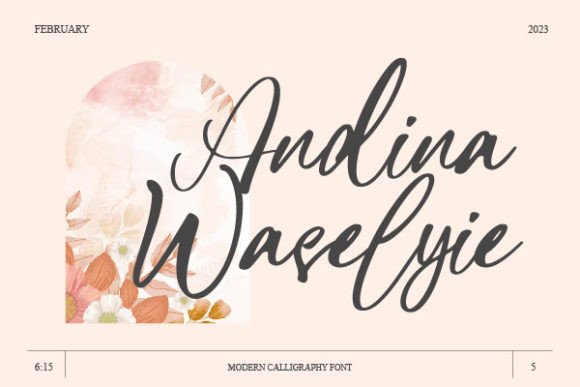
The Elegant Andina Waselyie Font: A Designer’s Dream Come True
I’ll never forget the time I was working on a wedding invitation project, and I just couldn’t find the perfect font to give it that elegant, handwritten touch. My client was specific about the style, and I was on a tight deadline. That’s when I stumbled upon the Andina Waselyie font, and it was love at first sight! 💕
Andina Waselyie is a stylish and incredibly elegant script font that has become a go-to in my design toolkit. It looks stunning on wedding invitations, thank you cards, quotes, greeting cards, logos, business cards, and every other design that needs a touch of sophistication.
- 💫 Elegant and stylish script font perfect for high-end designs
- 🎨 Versatile and works well with a variety of design elements
- 💬 Beautifully crafted with attention to detail
- ⚠️ Some letters have limited alternates, which can make it feel a bit repetitive
- 🤔 Not ideal for body text or long paragraphs, as it’s best used for headlines or titles
- Experiment with OpenType features, such as ligatures and stylistic alternates, to add more flair to your design.
Designer Inspiration: The Story Behind Andina Waselyie
The story behind Andina Waselyie is one of passion and dedication. The font was designed by a team of typographers who wanted to create a beautiful, elegant script font that would inspire designers to create stunning works of art. With its intricate details and flowing lines, Andina Waselyie is a true masterpiece.
Q: What type of designs is Andina Waselyie best suited for?
A: Andina Waselyie is perfect for designs that need a touch of elegance and sophistication, such as wedding invitations, thank you cards, quotes, greeting cards, logos, and business cards.
Q: Is Andina Waselyie a difficult font to read?
A: No, Andina Waselyie is highly legible, even at smaller font sizes. However, it’s best used for headlines or titles, rather than body text or long paragraphs.